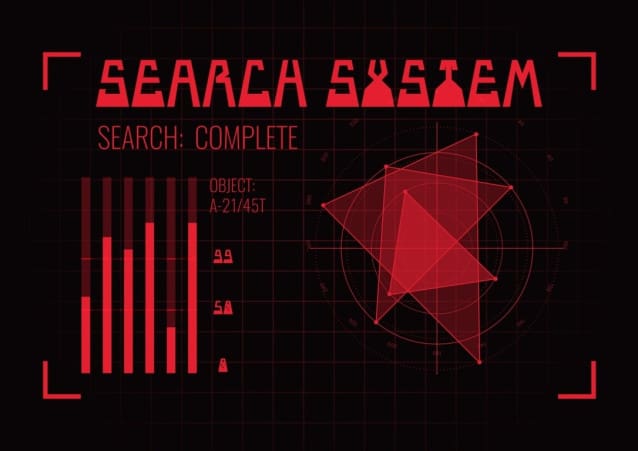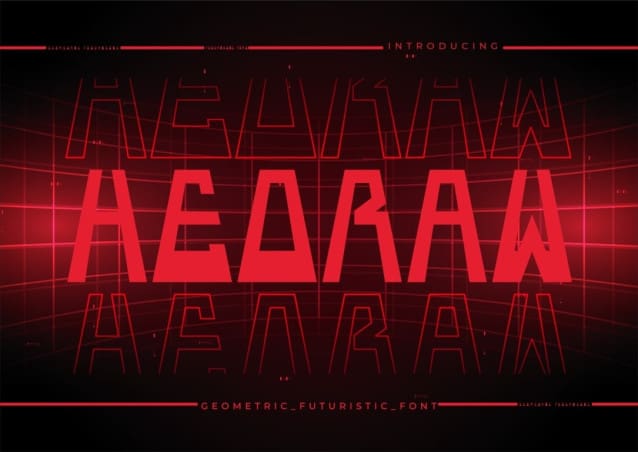
Hedraw Display Font
Hedraw Display Font, a font design inspired by modern bold aesthetics, characterized by its simplicity and unique shapes. This typeface is perfect for a wide range of projects related to gaming, future tech, space travel, virtual reality, and beyond. Embrace the versatility of HEDRAW as it adds a touch of contemporary style to your designs, making them stand out in the digital realm and beyond. Let HEDRAW be the perfect choice for expressing the cutting-edge themes of your creative endeavors.